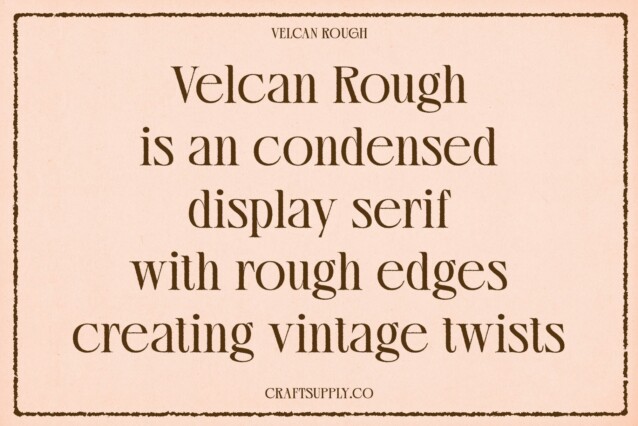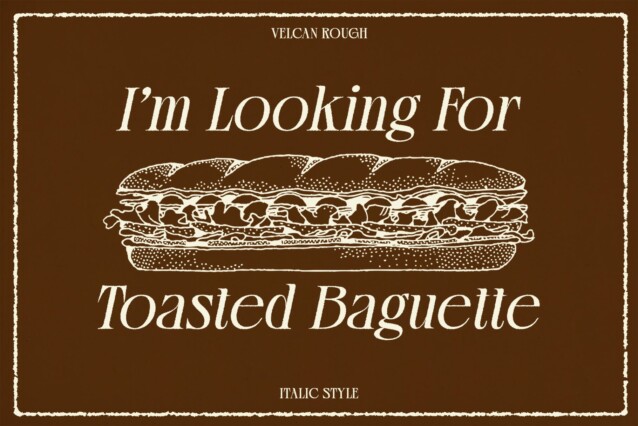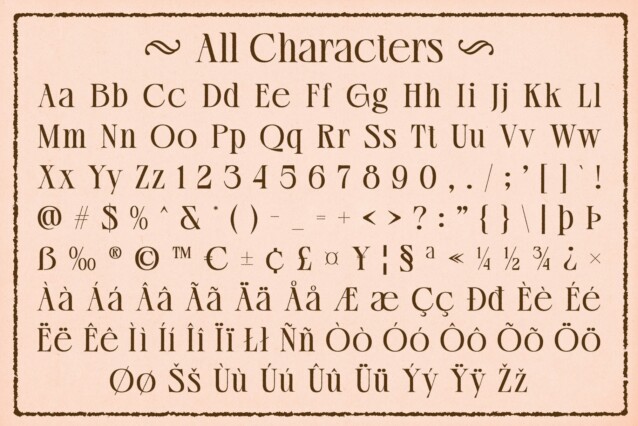
Velcan Rough Font
Velcan Rough Font is a modern serif font that combines the grace of classic typography with a contemporary twist. Its clean lines and structured forms convey a sense of sophistication and professionalism, making it ideal for formal and polished designs.